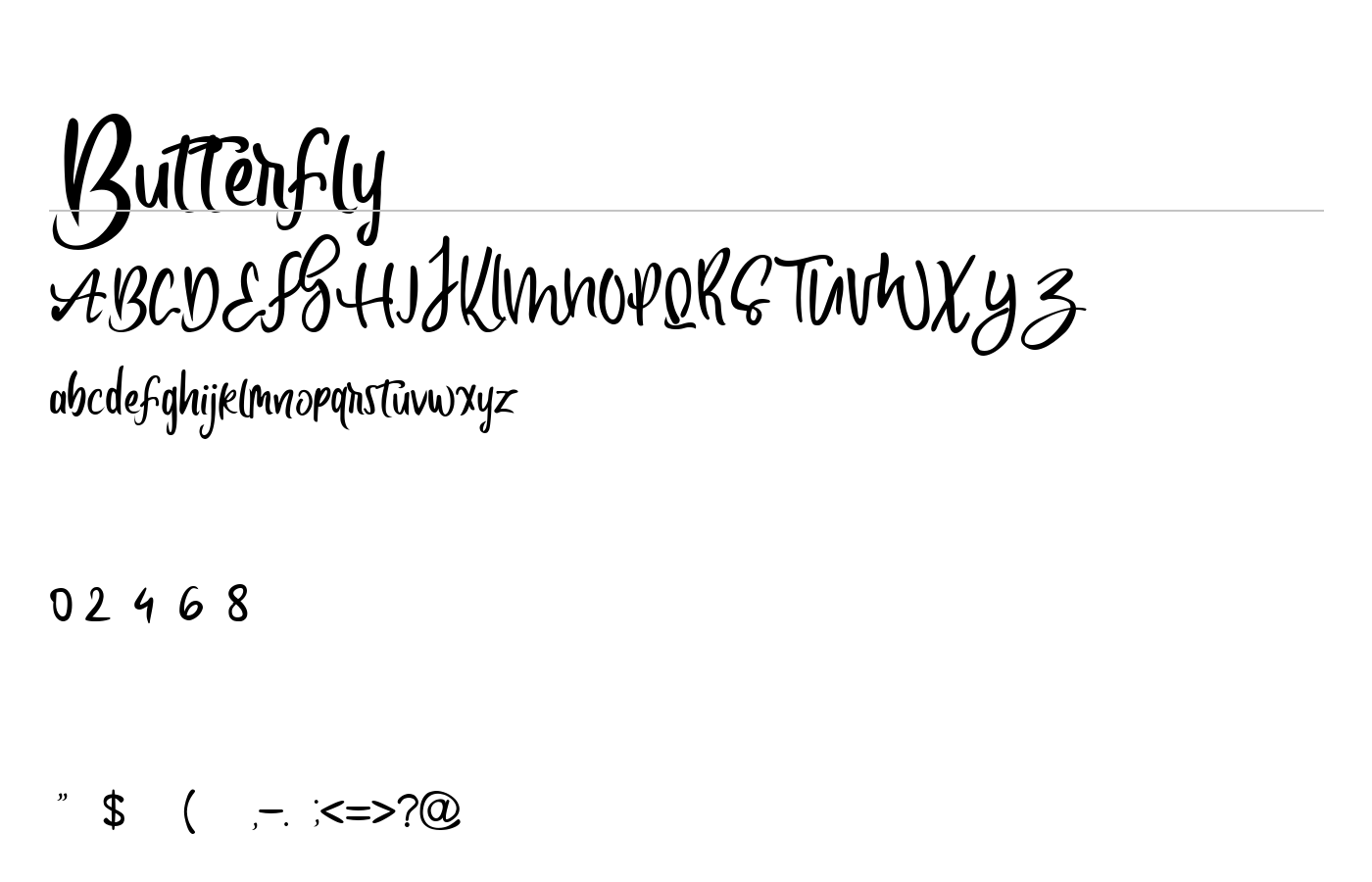
Butterfly Font is a lively and modern script typeface with a playful handwritten style, featuring fluid strokes and a slightly irregular baseline that adds charm and friendliness. Its varied stroke widths and unique letterforms make it perfect for creative branding, invitations, and casual editorial use where a personal touch and expressive character are desired. This font shines in headline and display settings, bringing warmth and a handcrafted feel to any design.
Butterfly Font
About Butterfly Font
| Font family | Butterfly Font |
| Designer | Skiiller studio |